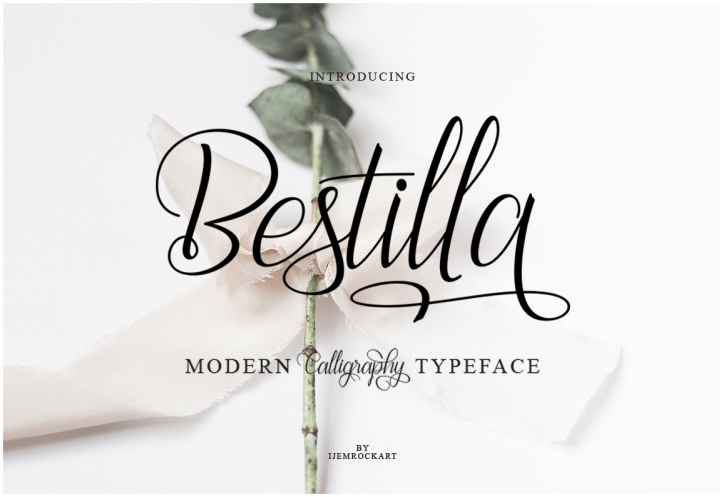
Bestilla Script is a great font that was designed by ijemijem. Imagine the amount of combinations you can create using this font! The archive is 10.95 MB and it was released on May 29, 2018. Bestilla Script looks beautiful on wedding invitations, greeting cards, logos, posters, labels, t-shirt designs, logos, business cards and is perfect for use in ink or watercolor works, fashion, magazines, packaging and food menus, children's books and more!